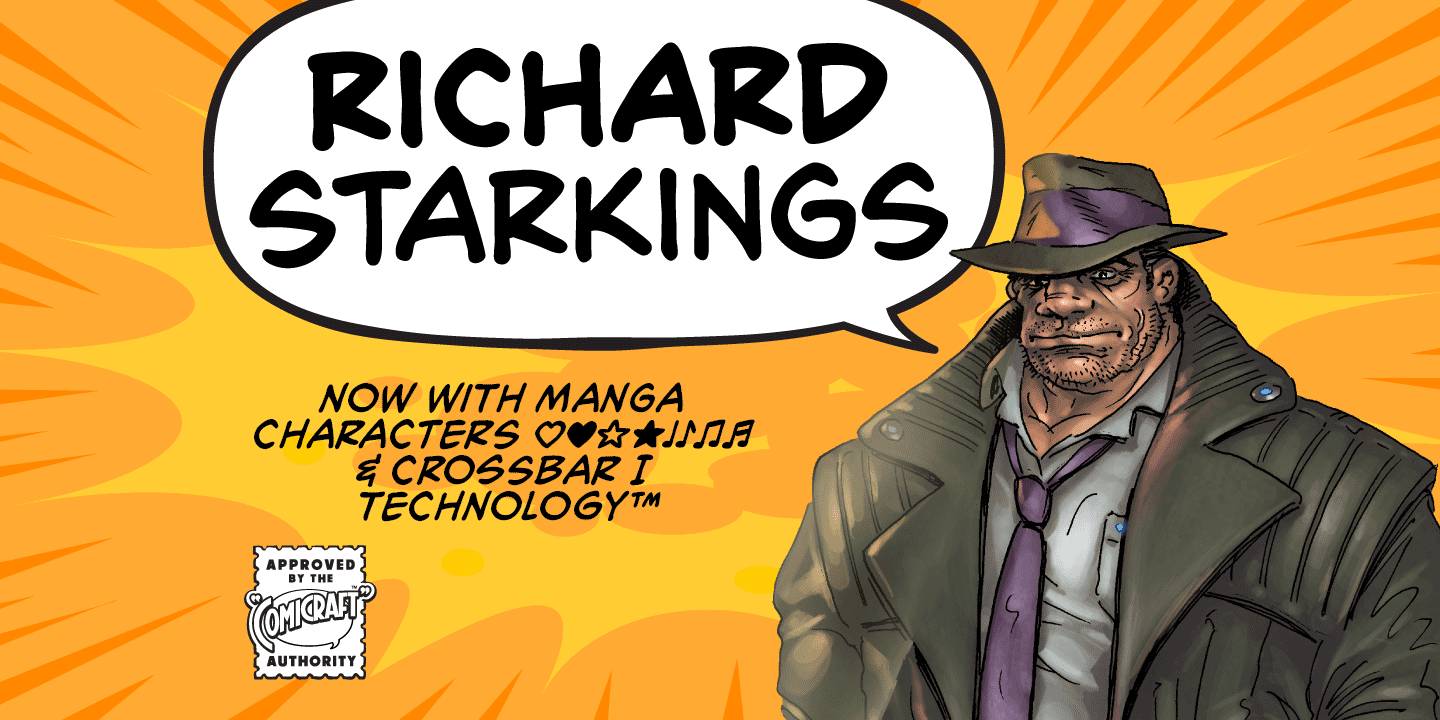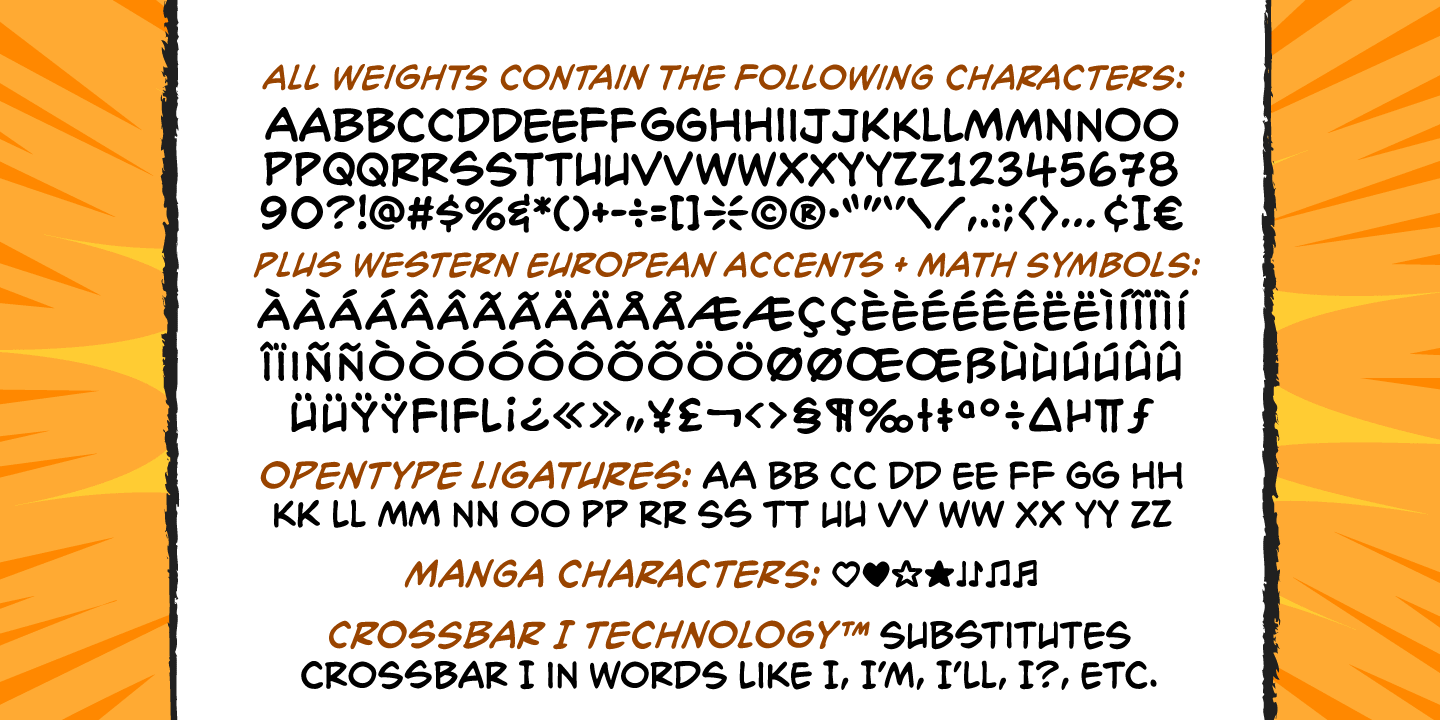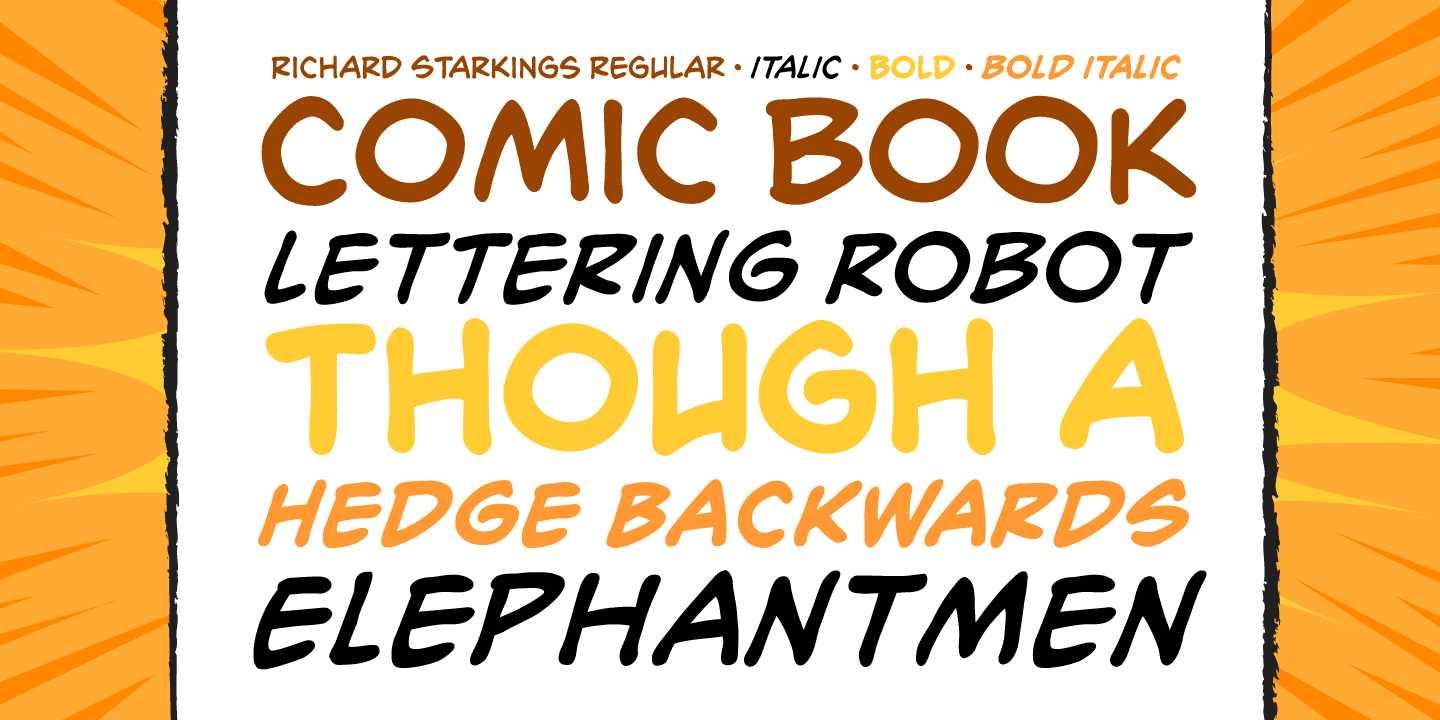
Richard Starkings
Font Family by Comicraft Fonts
A NEW HOPE! You begged with us..! You pleaded with us..! But we decided to release the official Richard Starkings font anyway!
Huh? WHAT? You heard that line before? Where? Hmm... on this very site...?
Well, yes, the Hedge Backwards font is all fine and dandy and does resemble the lettering legerdemain of comic book lettering robot, Richard Starkings... but has it been tweaked over the years to better suit the writing stylings of ELEPHANTMEN creator and writer, Richard Starkings? Has it been refurbished and digitally remastered by ELEPHANTMEN designer and Comicraft Secret Weapon, John JG Roshell? Hmm? No? Well then... here it is, retooled, reimagined and reStarkingsed...ah, what the hell, we started from scratch!
This ain't no Greedo Shoots First -- you won't have to keep your pasty '70s VHS recordings of previous Richard Starkings Fonts inside a concrete bunker. Because any other font that claimed to be the official Richard Starkings font would have been called The Official Richard Starkings Font, would it not?